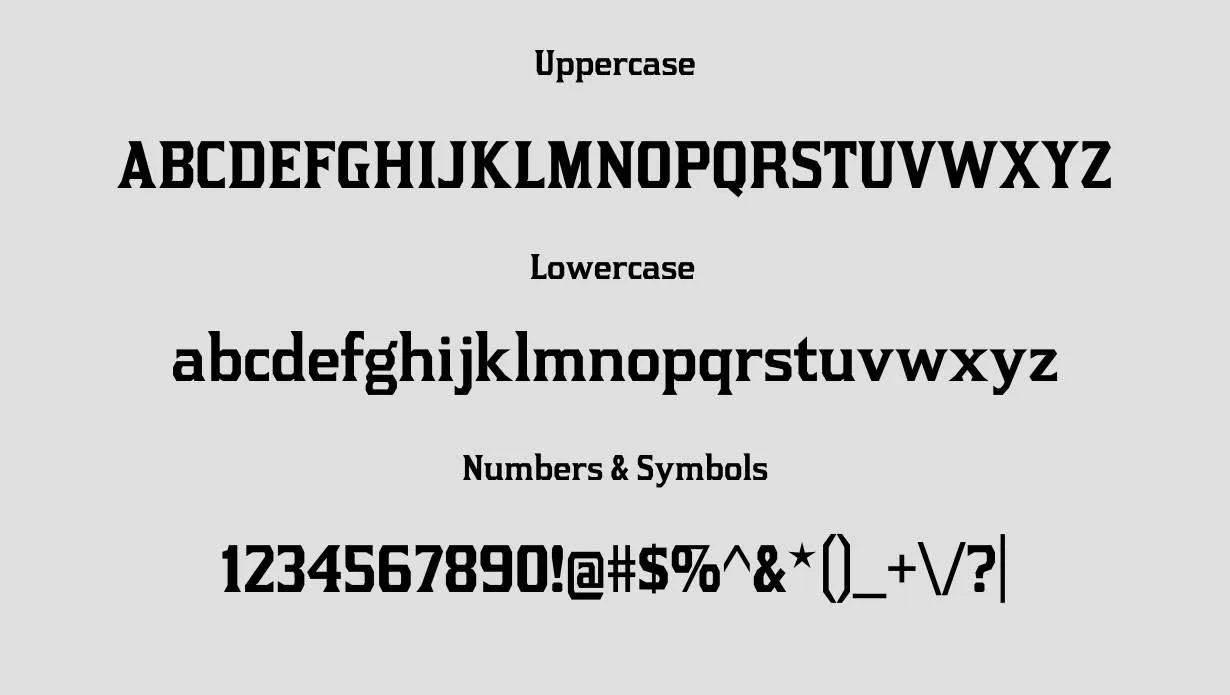
Kirsty font is a friendly and approachable typeface that works well in MS Word for personal documents, such as letters or casual invitations.
It adds a warm and welcoming feel to the text. In Adobe Photoshop, Kirsty can be used in social media graphics, creating a relaxed and friendly tone for posts or quotes. Its informal yet charming style is perfect for adding a personal touch to various designs.
| Name | Kirsty Font |
| Designer | Ray Larabie |